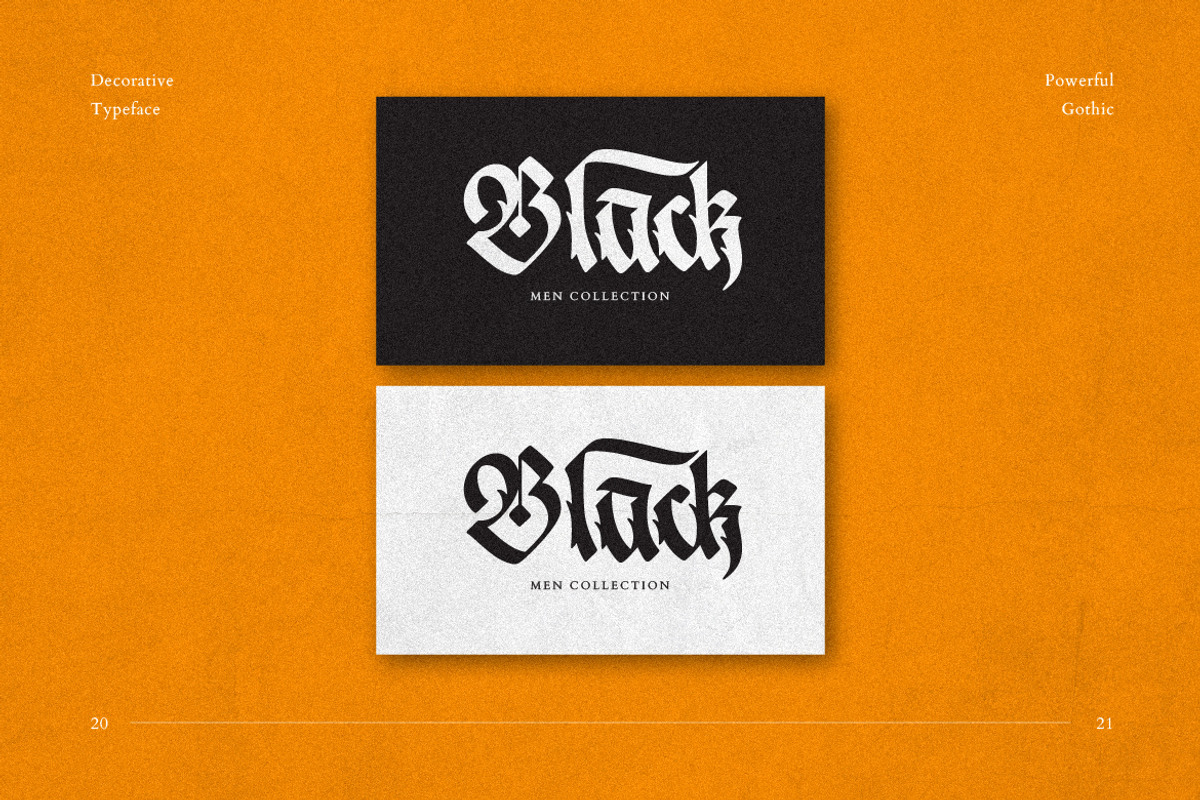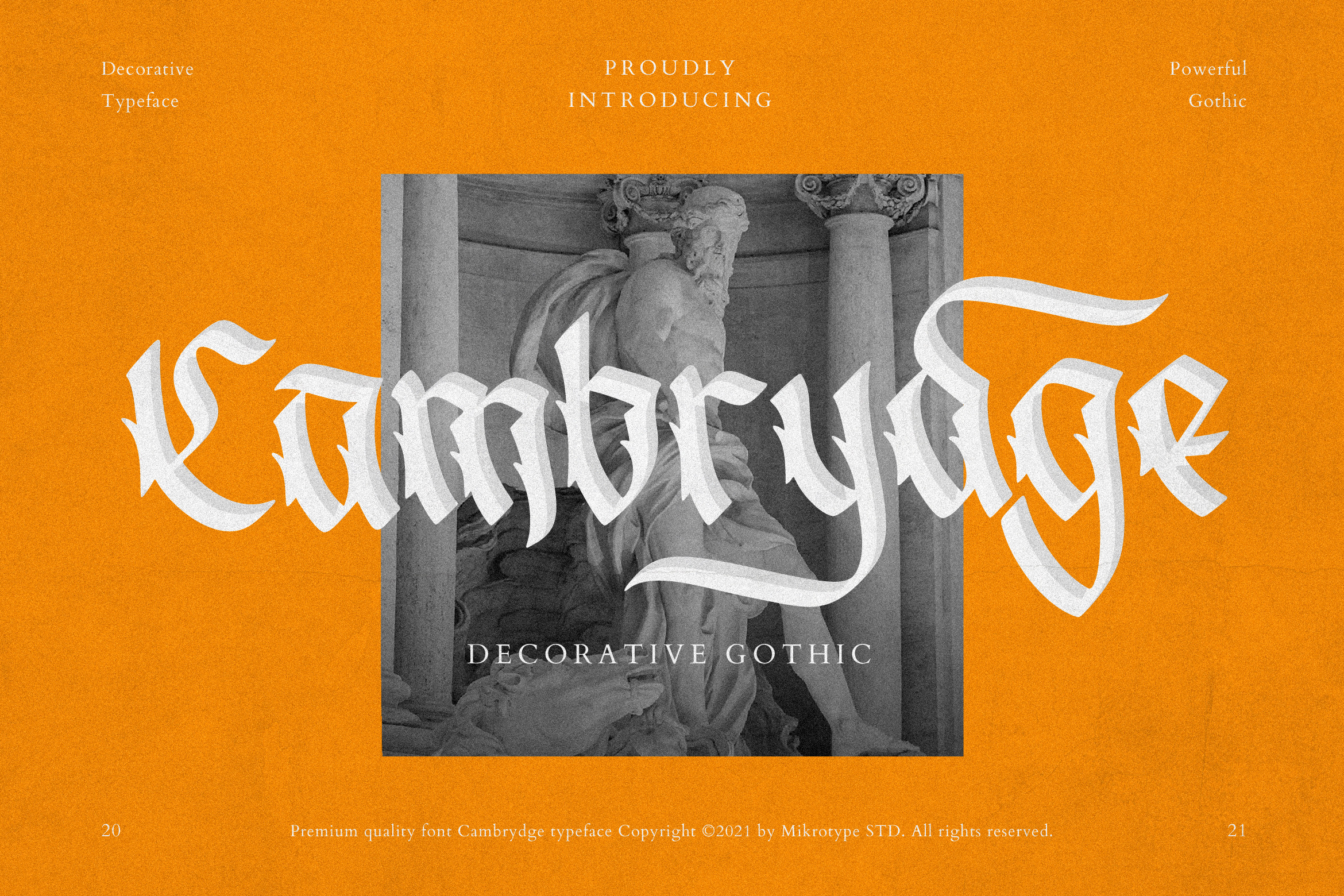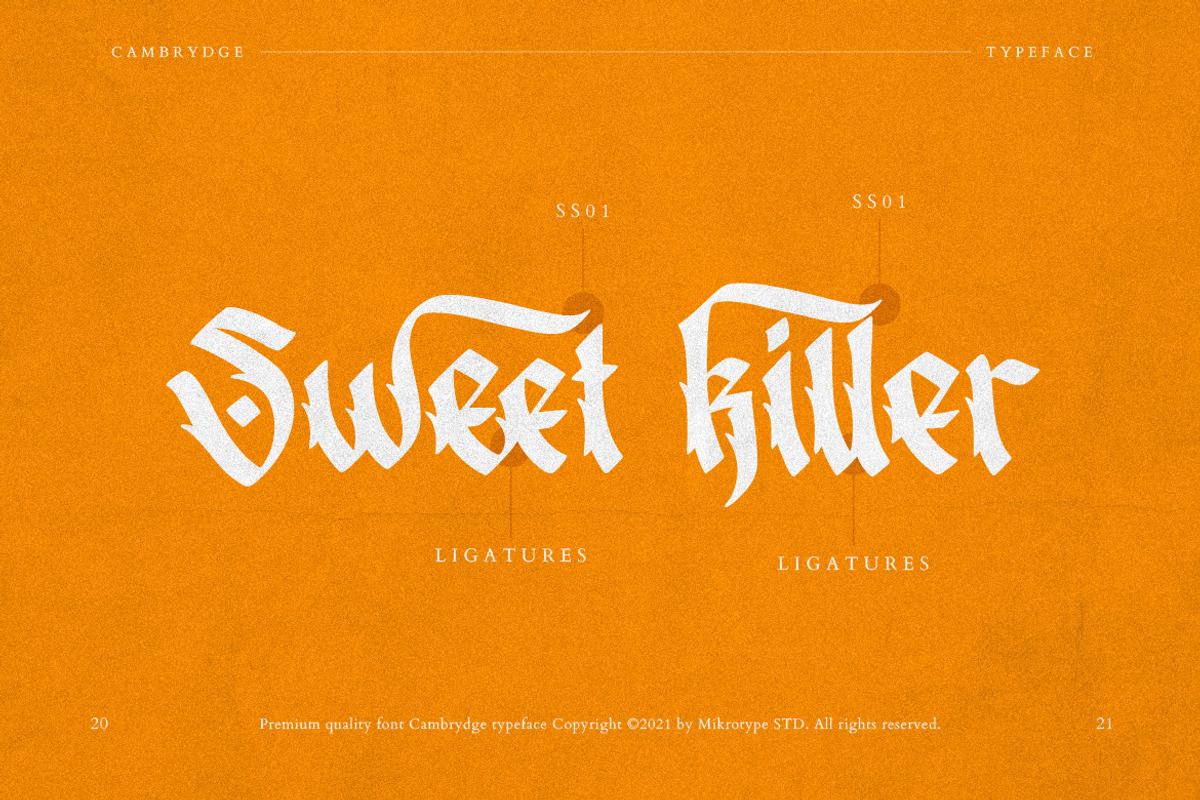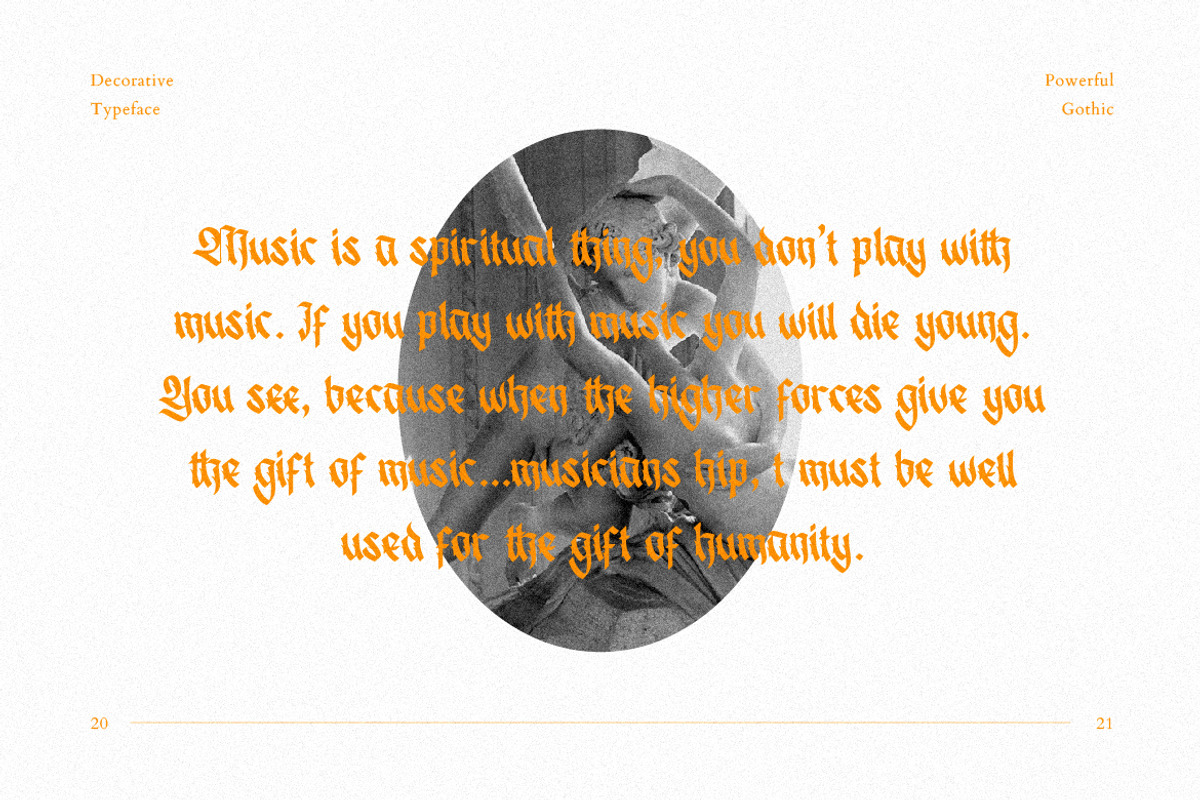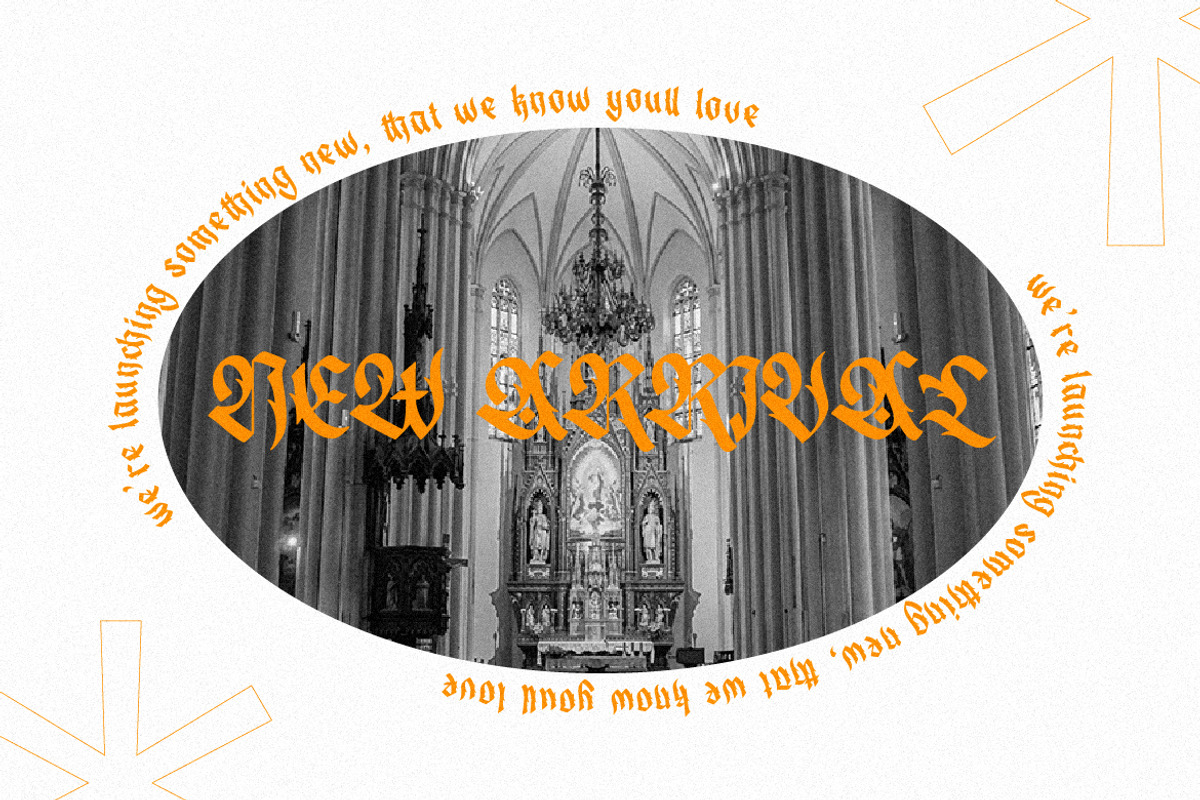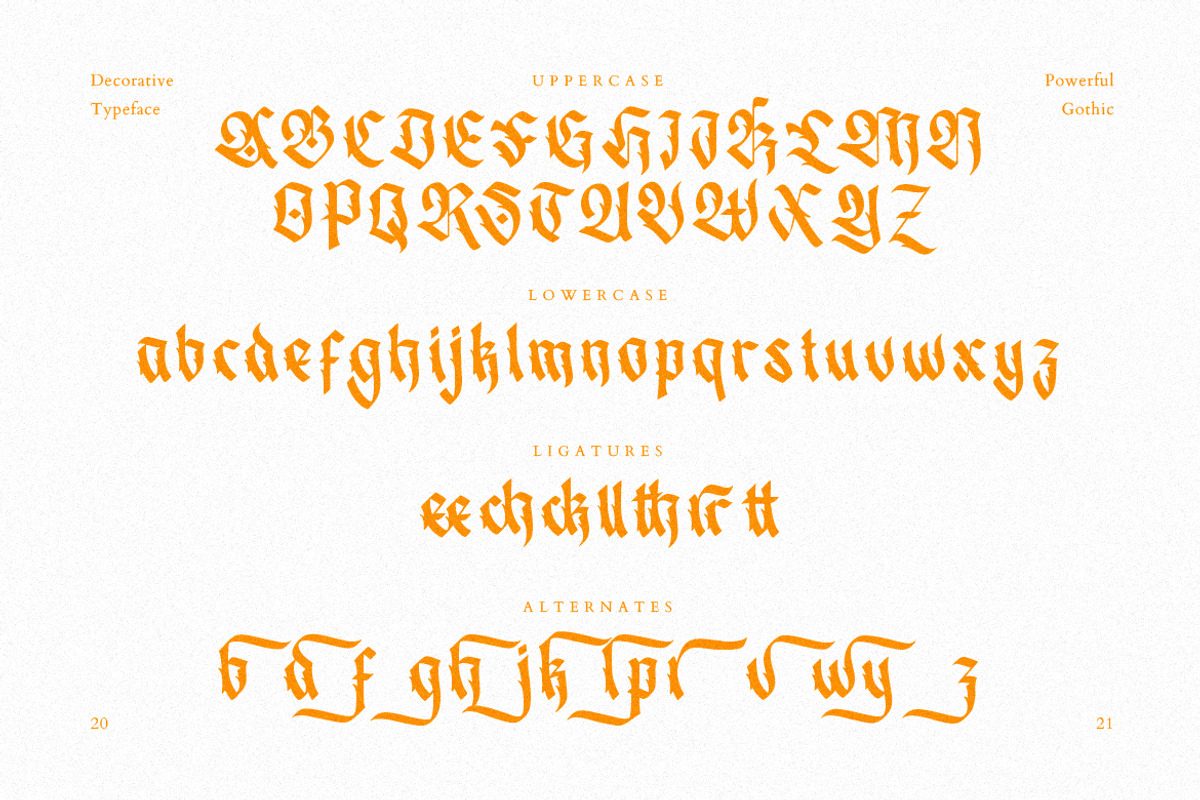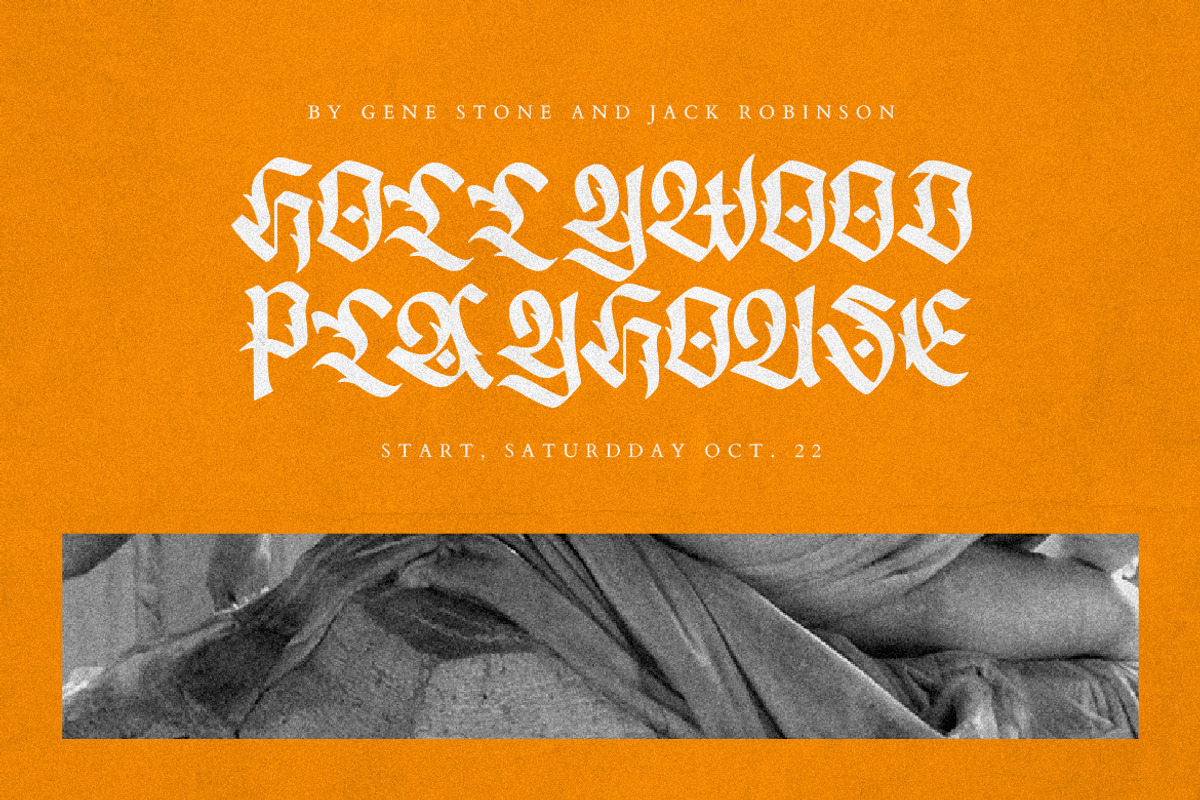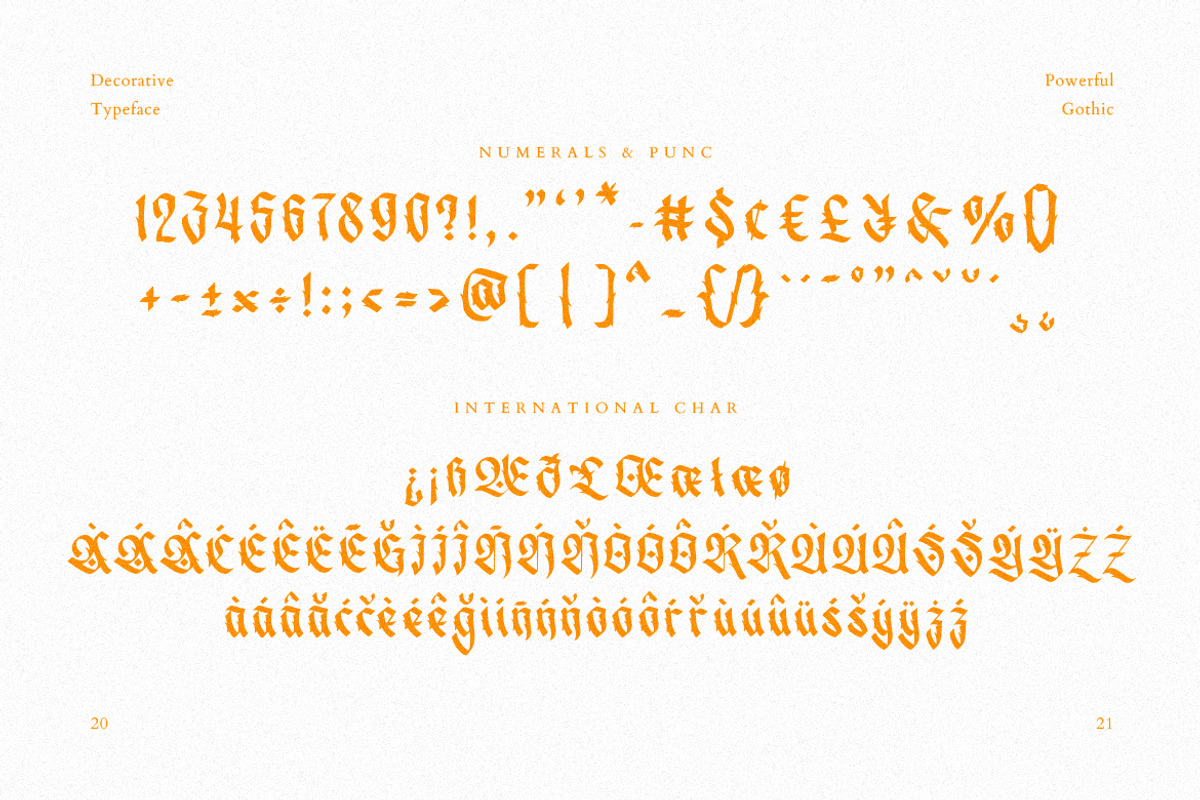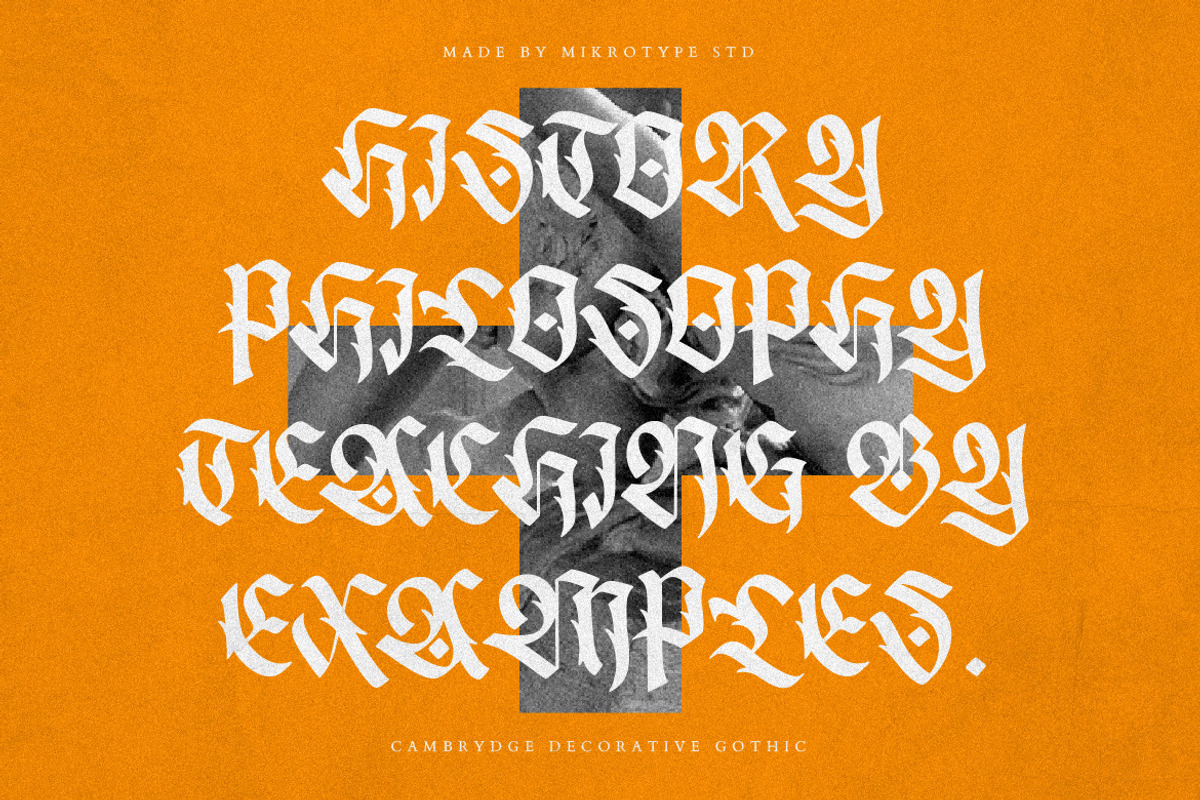
Cambrydge Gothic Advertisement Font
Introducing Cambrydge - A decorative gothic is an elegant, clean and trendy blackletter font. With a unique letter shape makes this font very beautiful and decorative. The font is perfect for for movie title, logo, blogging, brand identity, book title, social media, branding, wedding invites, cards or simply use it in your next design project and suitable to use for many occasion.
- Multilingual Characters support for;Afrikaans, Albanian, Czech, Danish, Dutch, English, Estonian, Finnish, French, Hungarian, Italian, Latvian, Lithuanian, Norwegian, Polish, Portugese, Slovak, Slovenian, Spanisch, Swedish, Turkish.